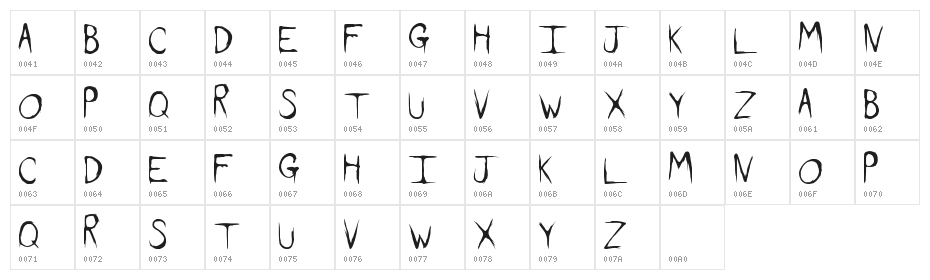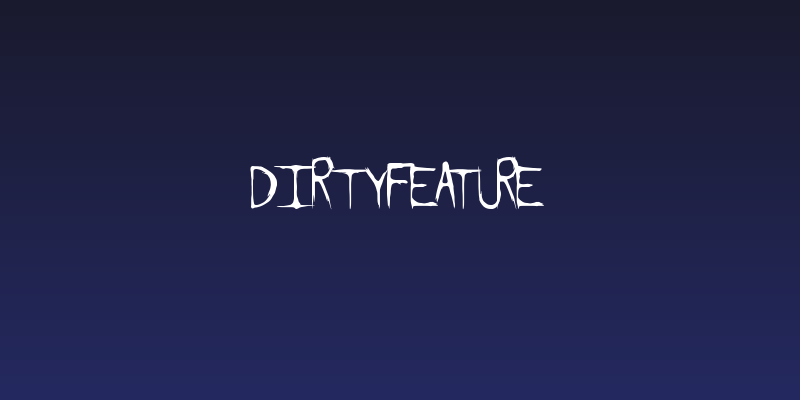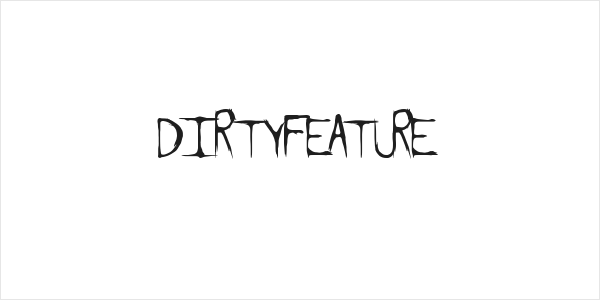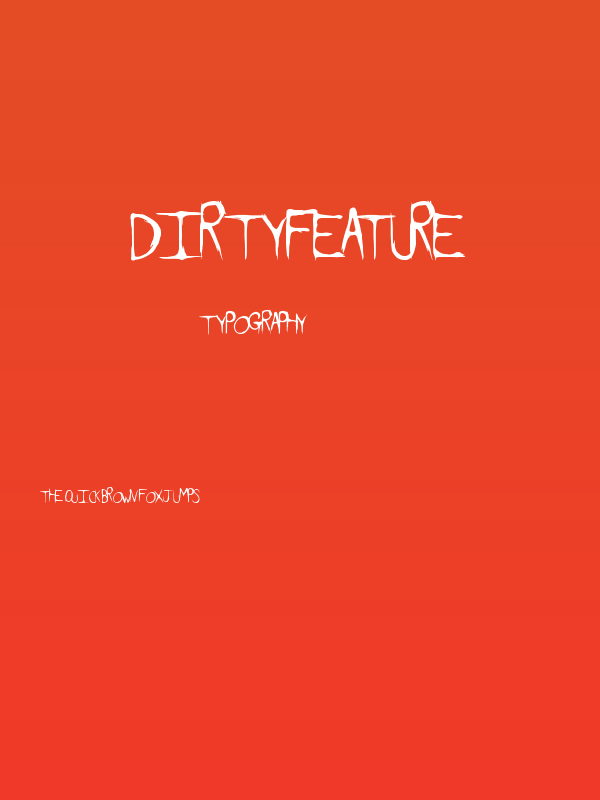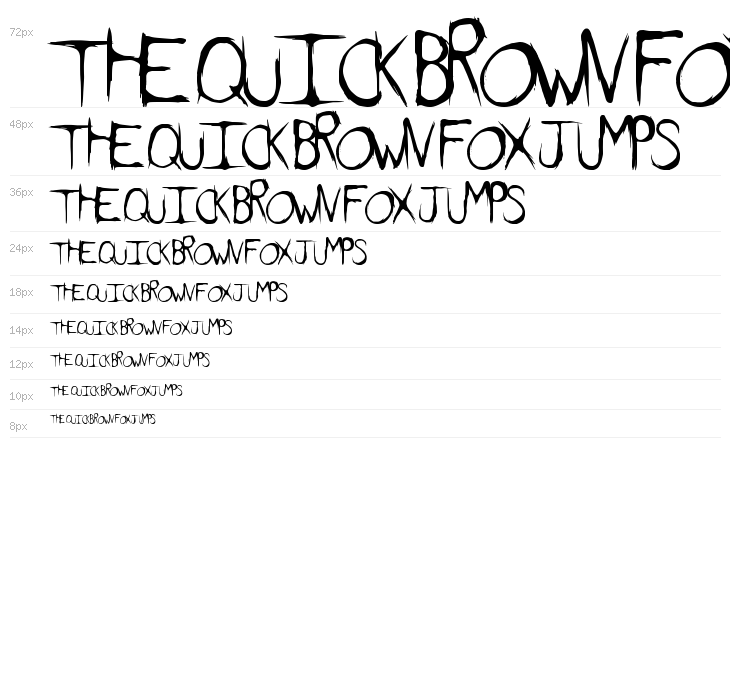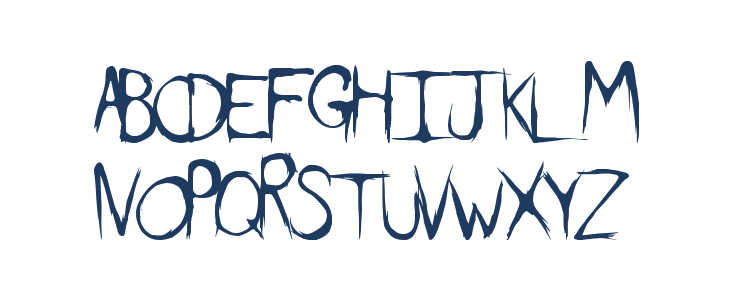
DirtyFeature Font
DirtyFeature Description
This font features a unique, edgy style with a distressed and grungy appearance. The uppercase letters are bold and jagged, with irregular edges that give a sense of movement and chaos. The lowercase letters maintain this rugged aesthetic, creating a cohesive look throughout. The characters are slightly elongated, adding to the dramatic effect. This font is perfect for projects that require a raw, rebellious vibe, such as music album covers, posters, or any design that aims to capture attention with its unconventional style. The special characters, including question marks and exclamation points, are designed with the same rough texture, ensuring consistency across all elements.
| Overall Style | Grunge, Edgy |
| Proposed Projects | Ideal for music album covers, edgy posters, and attention-grabbing designs. |